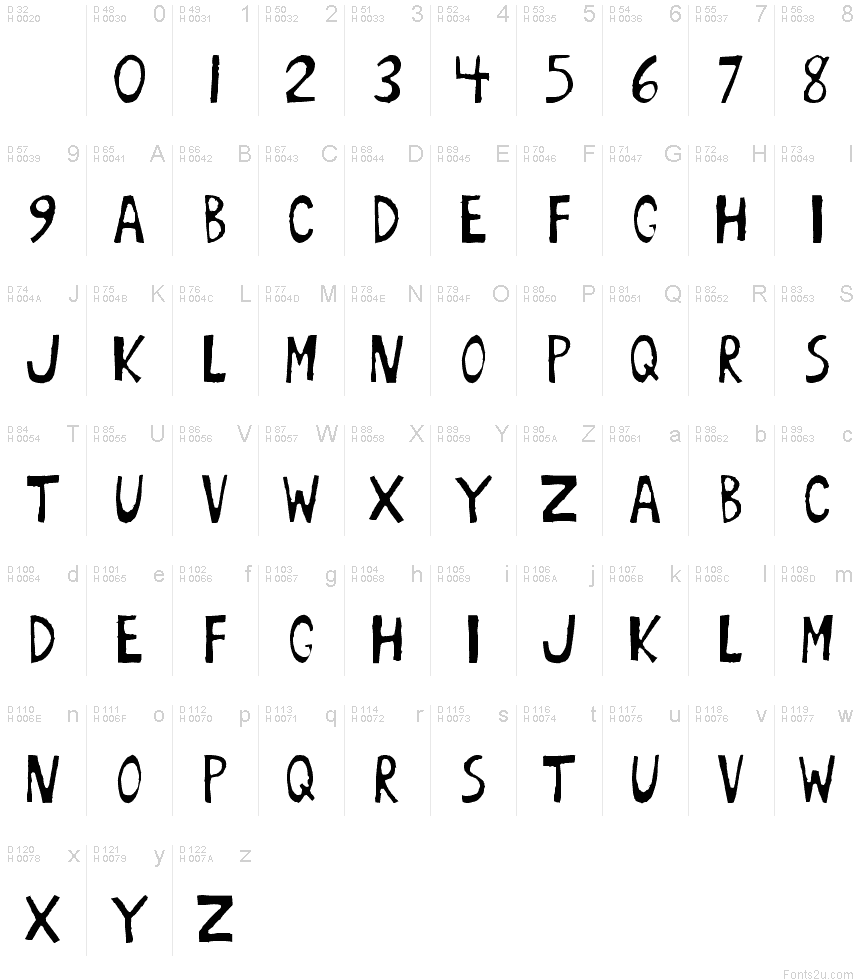
BoArust beta
BoArust font by «P2+K2» is a free comic typeface that looks like it’s been hacked out with a thick, half-dry marker. Letters are tall, scratchy, and a little wobbly, with inky edges that feel raw and handmade rather than cute or polished. The BoArust family’s irregular rhythm gives words a restless energy, as if every line was scrawled in the margins of a photocopied zine.
Using BoArust font, you can push attitude to the front of band posters, punk flyers, horror-comedy titles, edgy merch, zines, or grungy YouTube thumbnails. This free font thrives at larger sizes where its rough texture really shows. Pair it with a clean, condensed sans serif for supporting text to keep layouts wild but still readable.